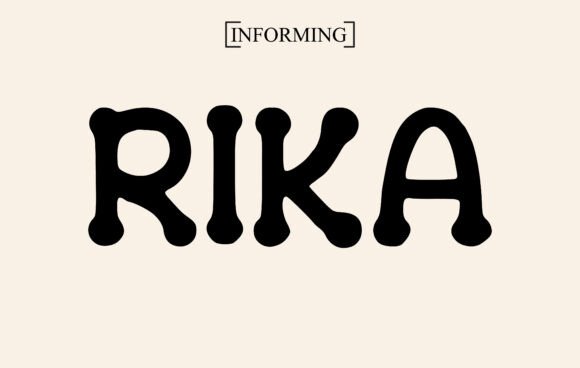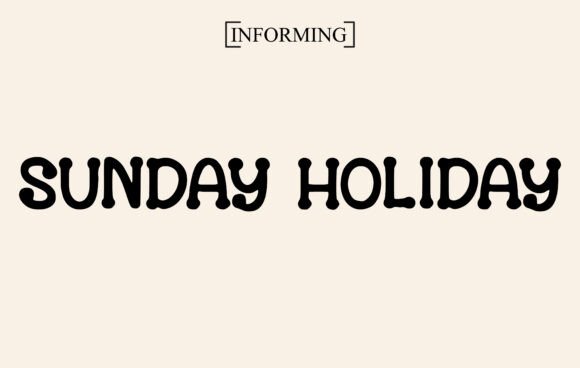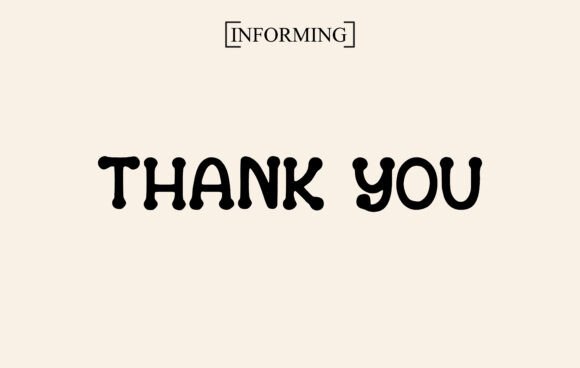
Rika Font
About the Rika Font
Discover the charm of Rika Font. This font is a perfect blend of modern aesthetics and classic appeal. This font is designed to be a true favorite and it has the potential to take your creative ideas to the highest level
Rika’s strong, yet friendly personality makes it ideal for headlines, logos, and short-form text in branding projects, posters, and social media graphics. Its legibility shines in concise applications, adding a touch of modern sophistication. However, its weight and distinct character might prove less suitable for extended body text or UI elements where readability over long passages is paramount.
Pairing Rika effectively depends on the desired effect. For a bold, contemporary feel, consider pairing it with a clean sans-serif like Lato or Open Sans. To emphasize elegance, a classic serif like Garamond or a delicate script like Great Vibes can create a beautiful contrast.
Rika’s overall mood is confident and approachable, making it a versatile choice for brands seeking a modern yet friendly image. Avoid using it in situations requiring extreme minimalism or a highly formal aesthetic.
Rika Font Usage Examples
Rika Font Example